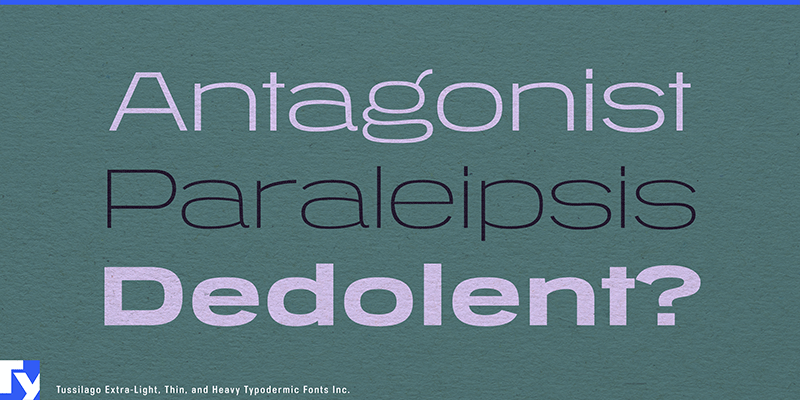
Tussilago
Tussilago is a wide sans-serif typeface with one foot in the mid-twentieth century and the other planted firmly in the present. Its extended letterforms recall the confident proportions of vintage display faces, but subtle detailing and modern spacing make it ready for contemporary work. Old-style and lining numerals are built in, so you can fine-tune the mood of everything from editorial layouts to brand identities. Tussilago’s openness and clarity make it just as comfortable in bold headlines as it is in compact body text. These fonts include a license that allows free commercial use: sometimes referred to as a desktop license. This allows you to install the fonts on a computer and use them to create posters, web graphics, game graphics, t-shirts, videos, signs, logos and more. Read the license agreement for details. If you'd like to embed this font in an app, on the web or anything that's not covered by the desktop license agreement, visit the link below. You'll find distributors who offer different types of licenses, or you can contact me for help. https://typodermicfonts.com/tussilago/ These free fonts are part of a larger font family. Check out the rest of the family through the link above.